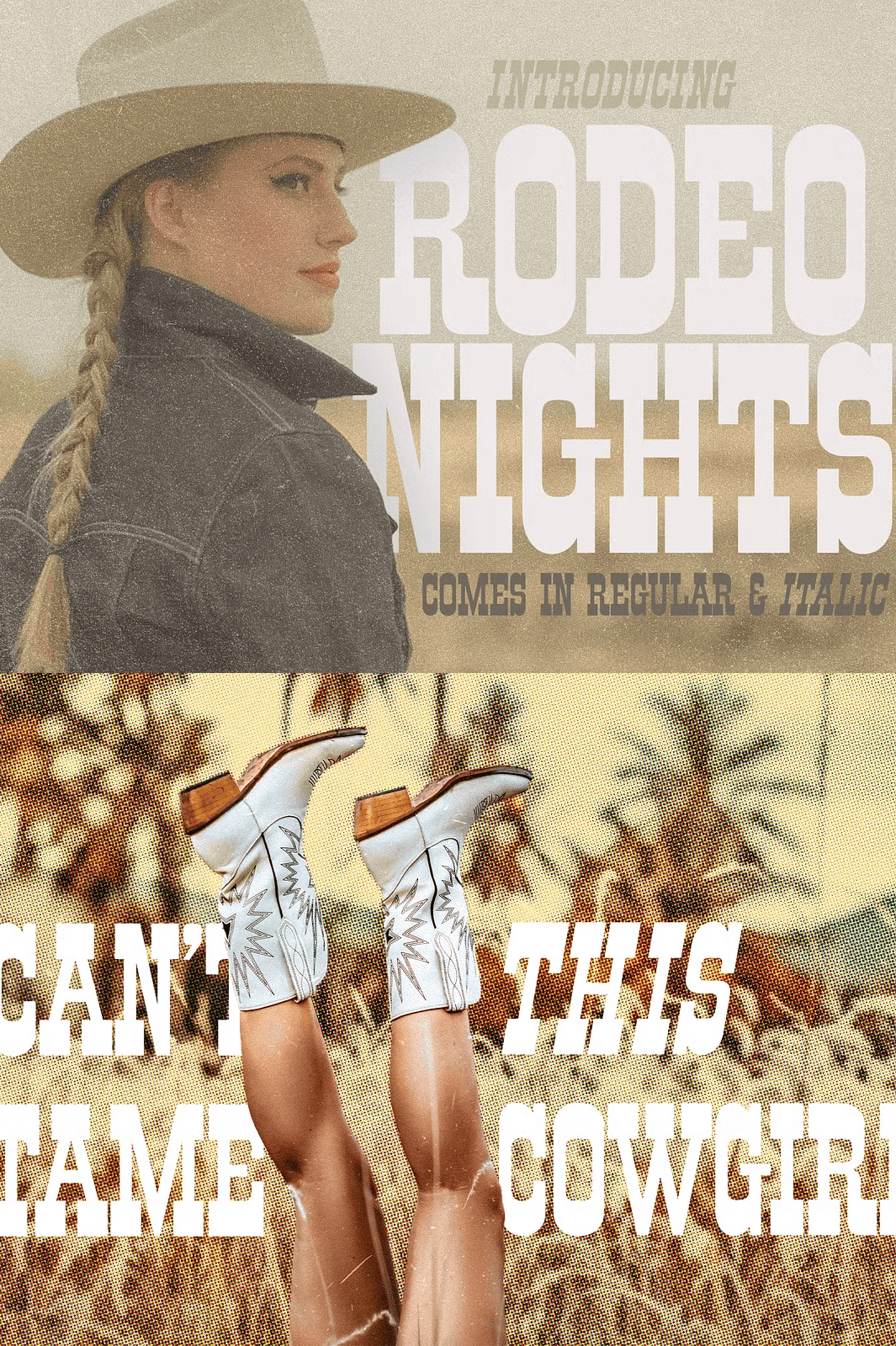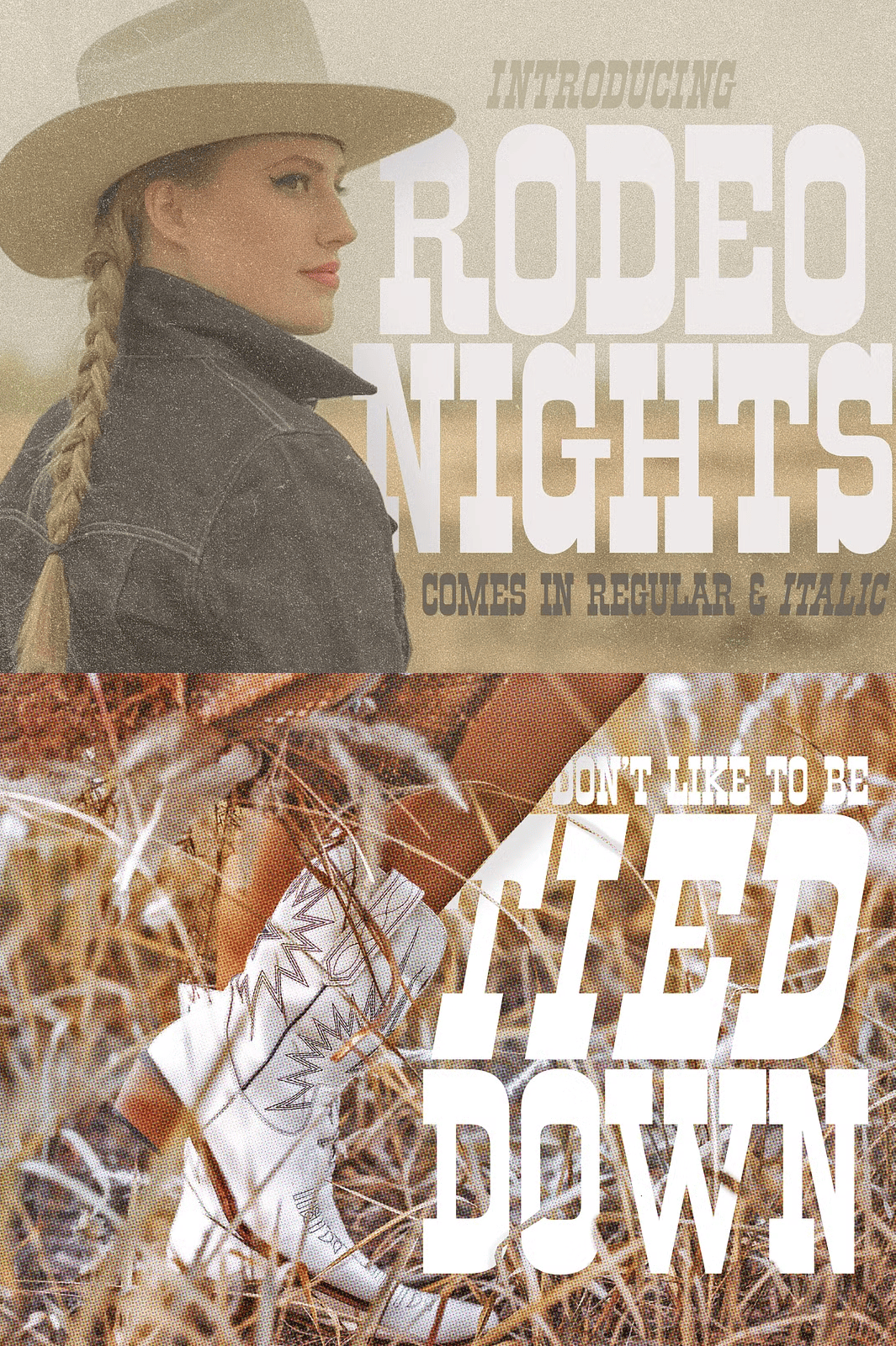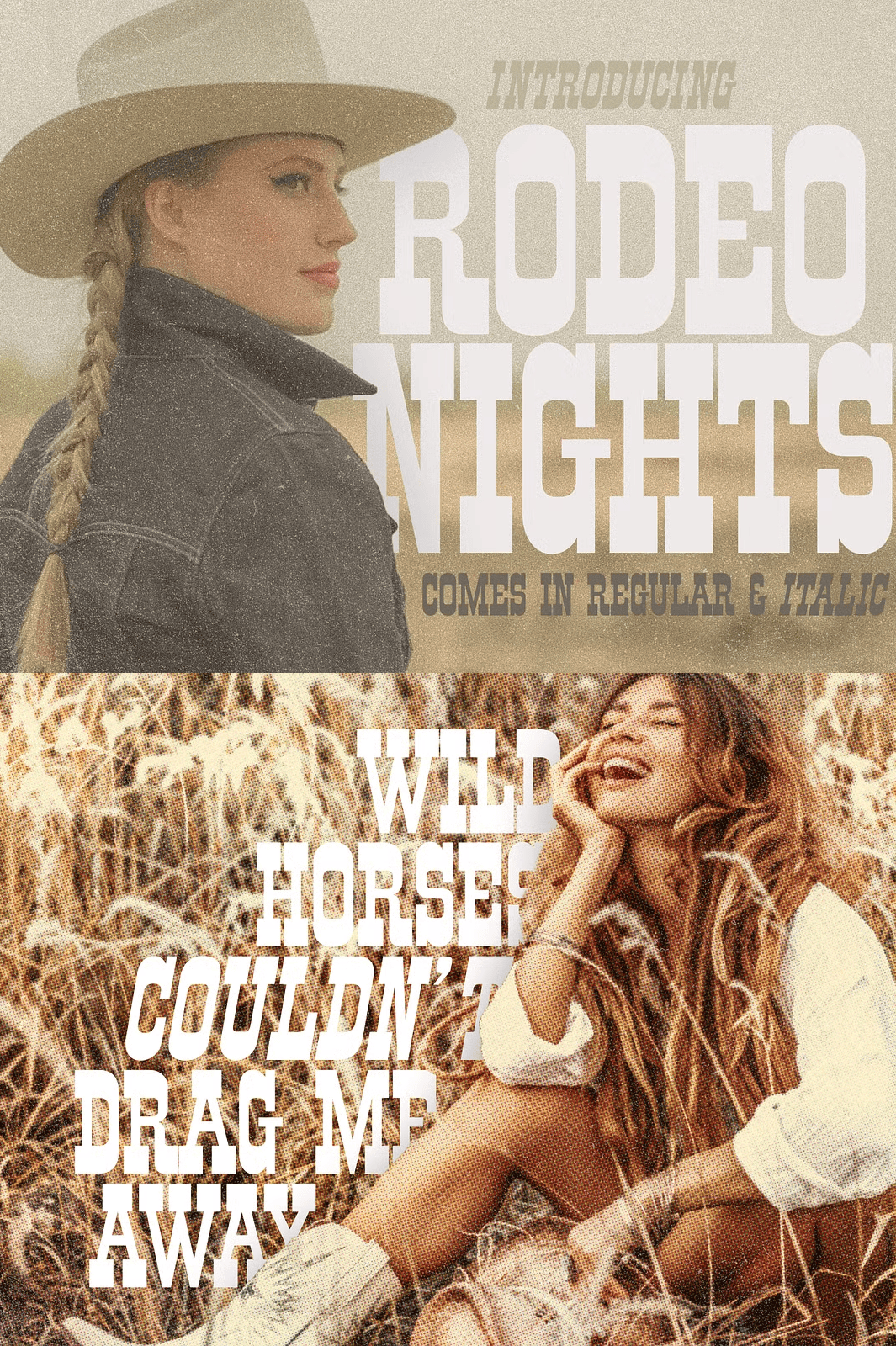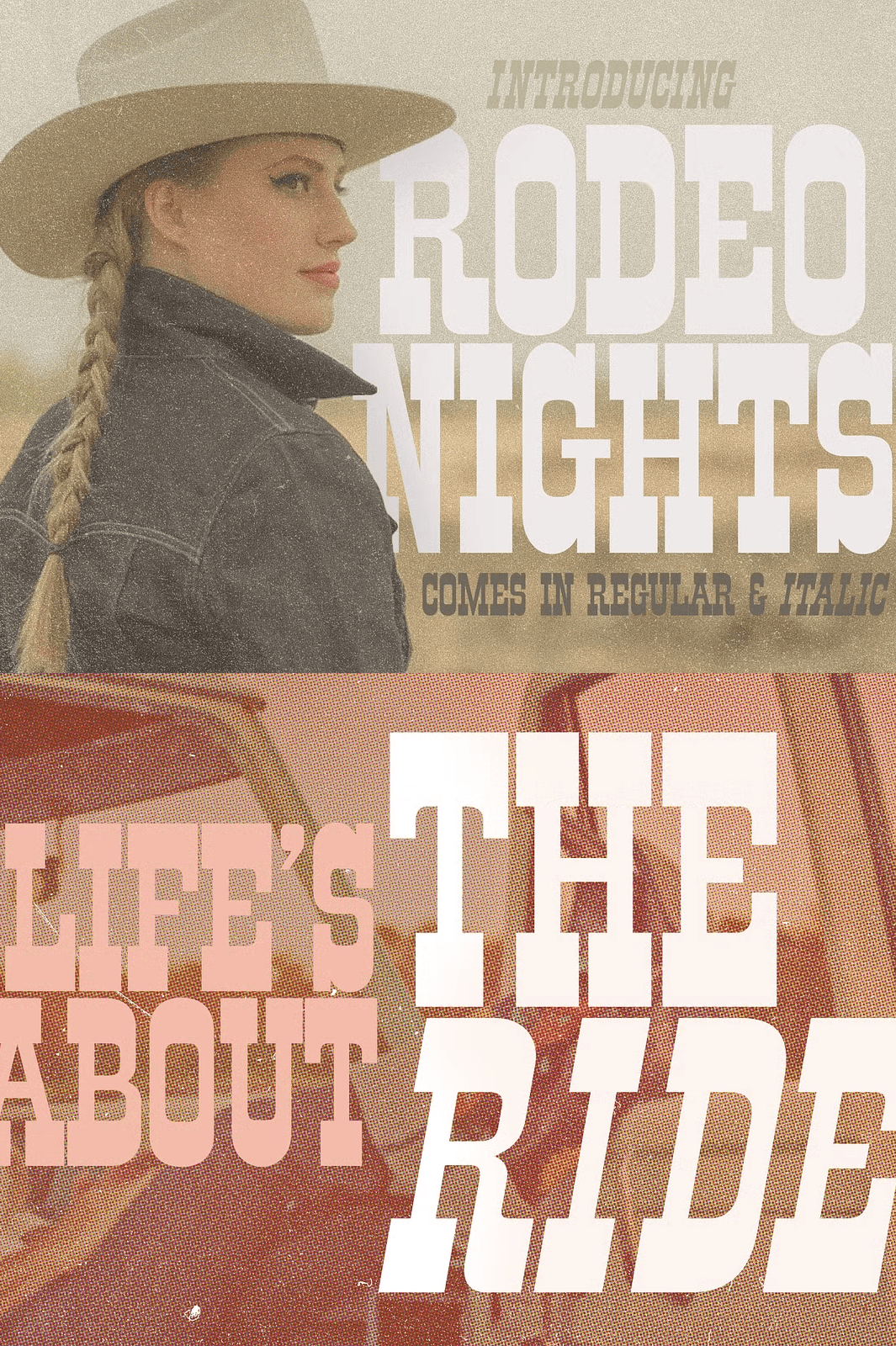
Rodeo Nights – Western Font
Unleash the spirit of the open range with Rodeo Nights, a powerful slab serif font inspired by classic Western typography. Crafted for creatives who crave authenticity and presence, this dual-style typeface brings the grit, charm, and timeless legacy of frontier design into your modern projects. Whether you’re branding a boutique ranch, designing a music festival poster, or launching a country lifestyle brand, Rodeo Nights delivers a commanding visual voice.
Own the Wild West Aesthetic with Two Distinct Styles
Rodeo Nights isn’t just one font—it’s a dynamic duo built for versatility and impact. Choose from two fully designed styles:
• Rodeo Nights Regular—Powerful, clean lines and strong serifs that command attention in headlines, logos, and signage.
• Rodeo Nights Italic—A flowing, dynamic companion that adds movement and drama to creative layouts, ideal for taglines, quotes, and elegant western motifs.
Each variant is expertly crafted to maintain typographic integrity while enhancing your project’s identity. Together, they form a complete design system that stands out in any Western-themed context.
From ranch signs to event invites, from packaging to web copy, Rodeo Nights ensures clarity and consistency—no matter where your audience is. It includes full uppercase, lowercase, numerals, punctuation, and special symbols for maximum flexibility in design.
• Full character set with ligatures, stylistic alternates, and extended punctuation.
Don’t just design—own your story. With Rodeo Nights, you’re not just using a font. You’re embracing a legacy. Whether you’re creating a rodeo event banner, a western apparel label, or a vintage-inspired magazine cover, this typeface brings authenticity and attitude to every pixel.
Create bold. Feel the West. Own the moment with Rodeo Nights—where every letter tells a story.